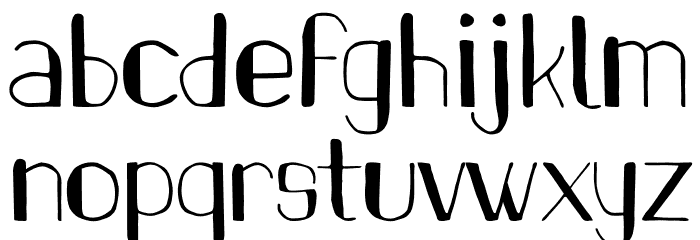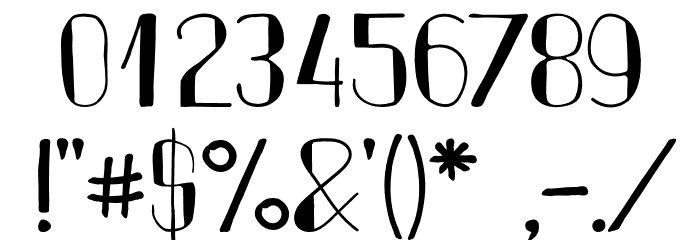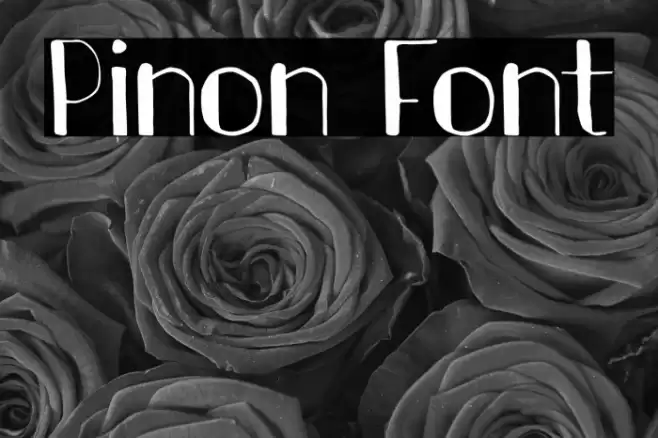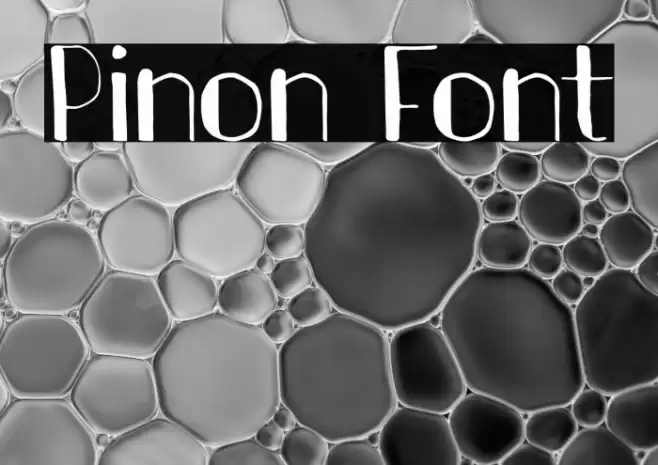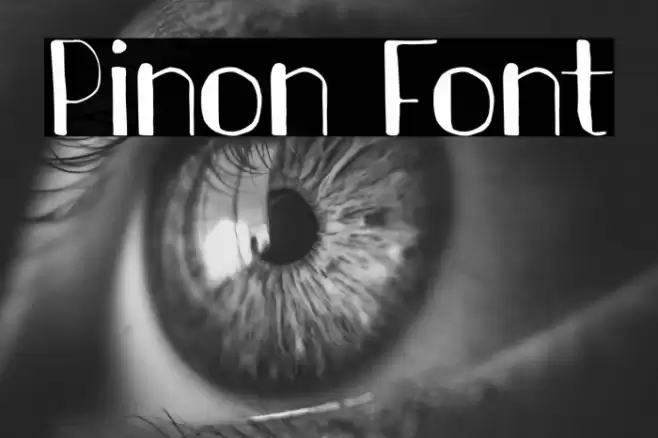
Pinon Font
This font features a unique, hand-drawn style with a playful and artistic flair. The characters are tall and narrow, with a mix of thick and thin strokes that create a dynamic visual rhythm. The uppercase letters have a slightly angular appearance, while the lowercase letters are more rounded and fluid. The numbers and special characters maintain the same whimsical quality, adding to the font's overall charm. This font's distinctive style makes it stand out, offering a creative and informal touch to any design.
A playful, hand-drawn font with dynamic strokes and a whimsical style.
- Proposed Projects: Ideal for creative projects such as children's books, greeting cards, posters, and branding that seeks a playful and artistic touch.